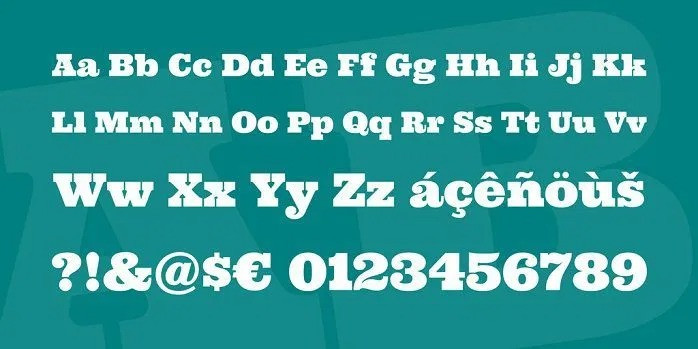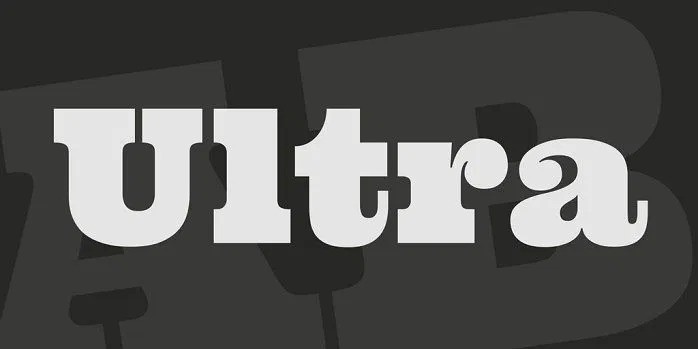
Ultra Slab Serif Font is an extremely daring slab typeface with nods to wooden variety types like Clarendon and Egyptian. Powerful and spectacular letterforms for titling, a serious, still welcoming, and easily legible typestyle. Perfect for ability headlines and titling for impact.
Ultra Font